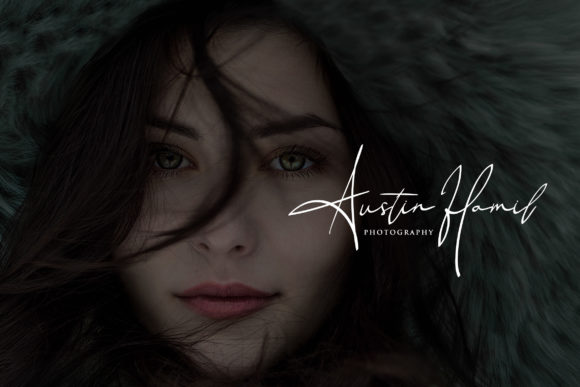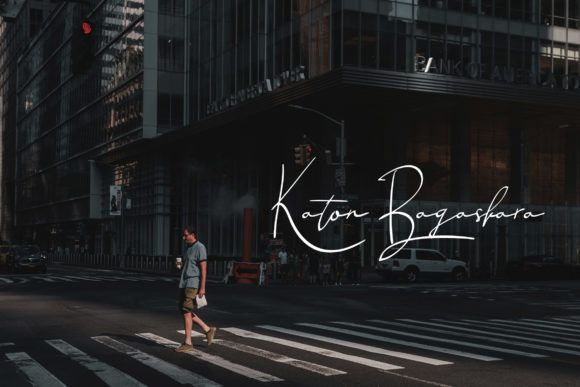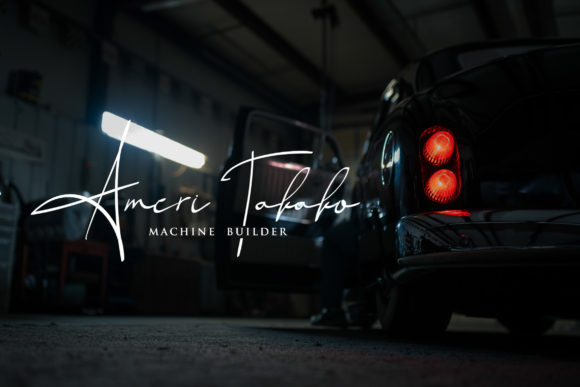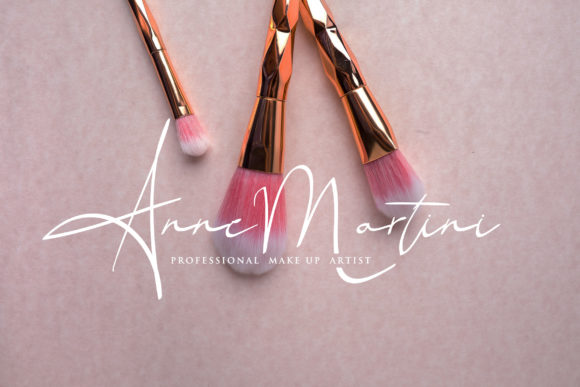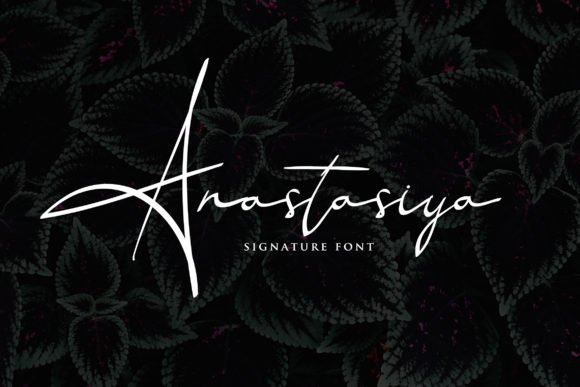
Introducing Anastasiya Font: Elevate Your Designs with Elegance
Are you on the hunt for a font that can add a touch of sophistication and personality to your designs? Look no further than the Anastasiya font. This beautiful, elegant signature font is perfect for designers and crafters looking to make their mark. In this article, we’ll dive into the world of Anastasiya font, exploring its features, uses, and benefits.
The Anastasiya Font: A Handwritten Masterpiece
The Anastasiya font is a stunning example of handwritten typography. Its unique, flowing script is reminiscent of traditional calligraphy, but with a modern twist. The font’s elegant strokes and subtle imperfections give it a personal, human touch that’s perfect for adding a touch of warmth to your designs.
What Makes Anastasiya Font So Special?
So, what sets Anastasiya font apart from other fonts on the market? Here are just a few reasons why designers and crafters are falling in love with this beautiful font:
- Elegant and sophisticated: Anastasiya font exudes elegance and sophistication, making it perfect for high-end designs, branding, and luxury products.
- Handwritten style: The font’s handwritten style gives it a personal, unique feel that’s perfect for adding a touch of personality to your designs.
- Versatile: Anastasiya font is incredibly versatile, and can be used for a wide range of design projects, from modern designs and photography to signatures and branding.
- Easy to read: Despite its elegant, cursive style, Anastasiya font is surprisingly easy to read, making it perfect for body text and headlines.
Perfect for Modern Designs and Crafting
Anastasiya font is a dream come true for modern designers and crafters. Its unique style and versatility make it perfect for a wide range of projects, including:
- Photography: Add a touch of elegance to your photo captions, titles, and descriptions with Anastasiya font.
- Branding: Use Anastasiya font to create stunning logos, business cards, and marketing materials that reflect your brand’s personality.
- Signatures: Add a personal touch to your digital signatures, or use Anastasiya font to create beautiful, custom signatures for your clients.
- Crafting: From scrapbooking to card making, Anastasiya font is perfect for adding a touch of elegance to your crafting projects.
Tips and Tricks for Using Anastasiya Font
To get the most out of Anastasiya font, here are a few tips and tricks to keep in mind:
- Pair with contrasting fonts: Anastasiya font pairs beautifully with bold, sans-serif fonts. Try pairing it with a font like Arial or Helvetica for a striking contrast.
- Experiment with colors: Anastasiya font looks stunning in a range of colors, from rich jewel tones to soft pastels. Experiment with different colors to find the perfect fit for your design.
- Use for headlines and titles: Anastasiya font is perfect for headlines and titles, where its elegant style can really shine.
In conclusion, Anastasiya font is a beautiful, elegant signature font that’s perfect for designers and crafters looking to add a touch of sophistication and personality to their designs. With its unique, handwritten style and versatility, Anastasiya font is sure to become a favorite in your design toolkit. So why wait? Download Anastasiya font today and start elevating your designs to new heights!